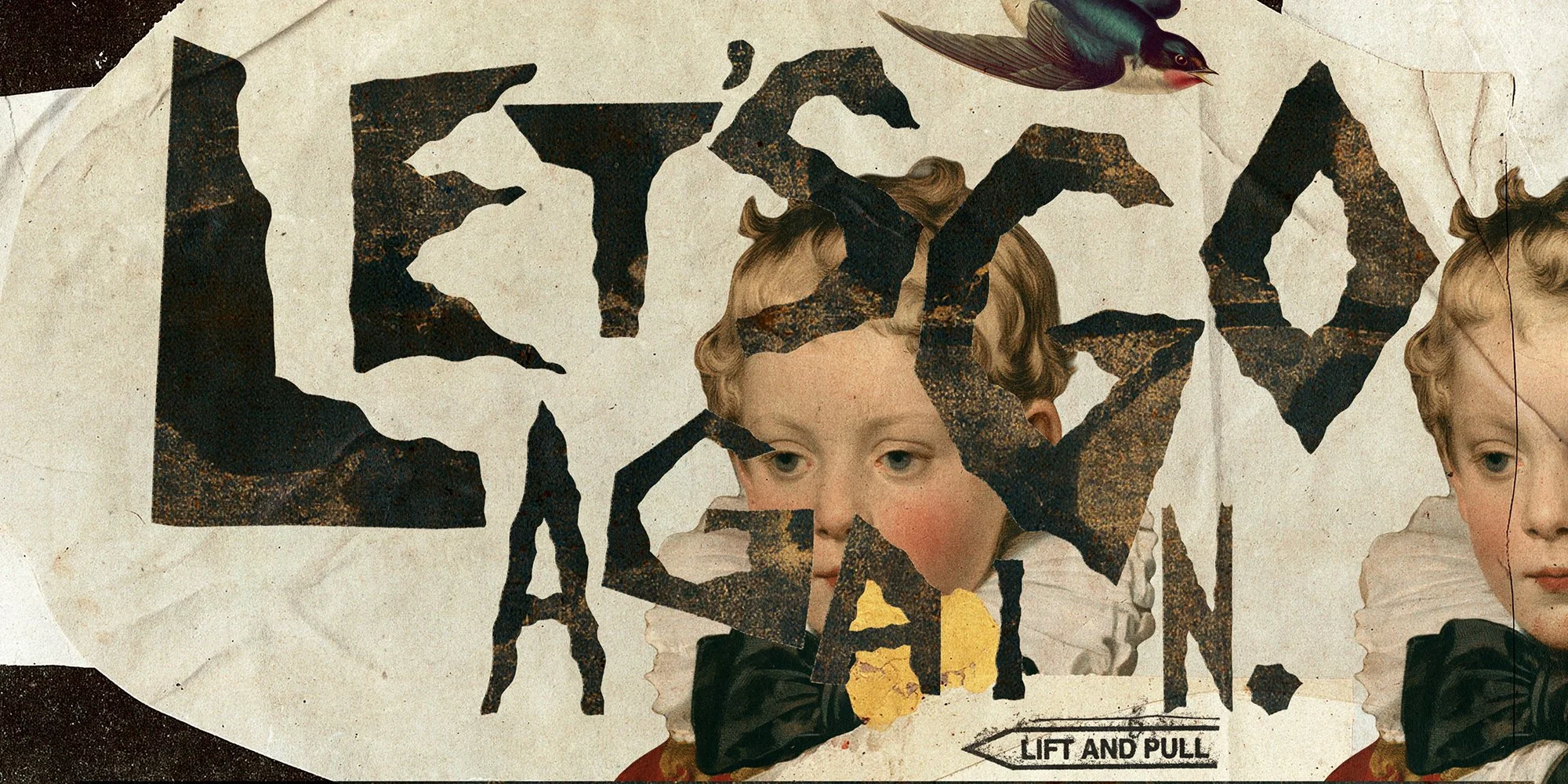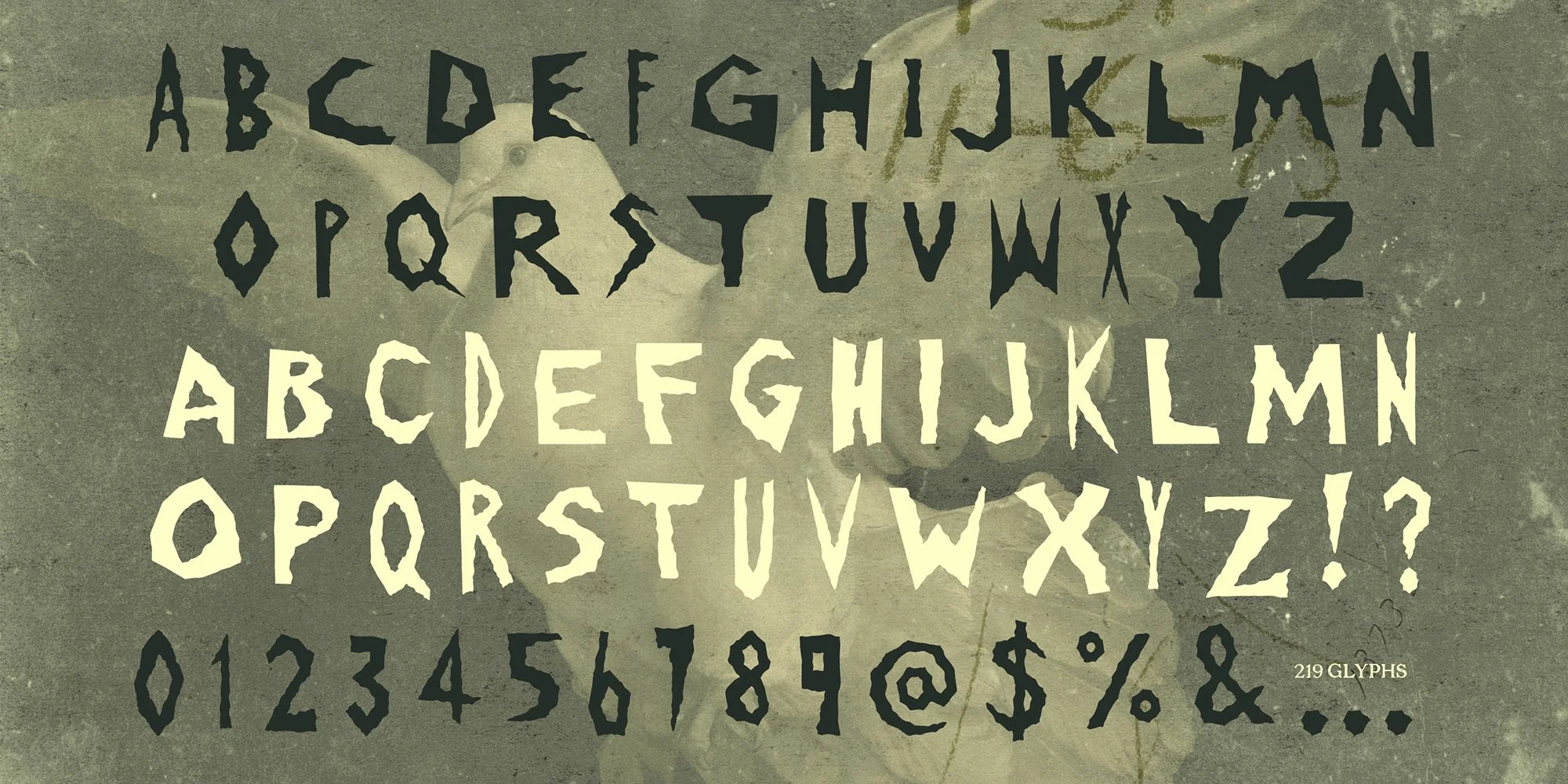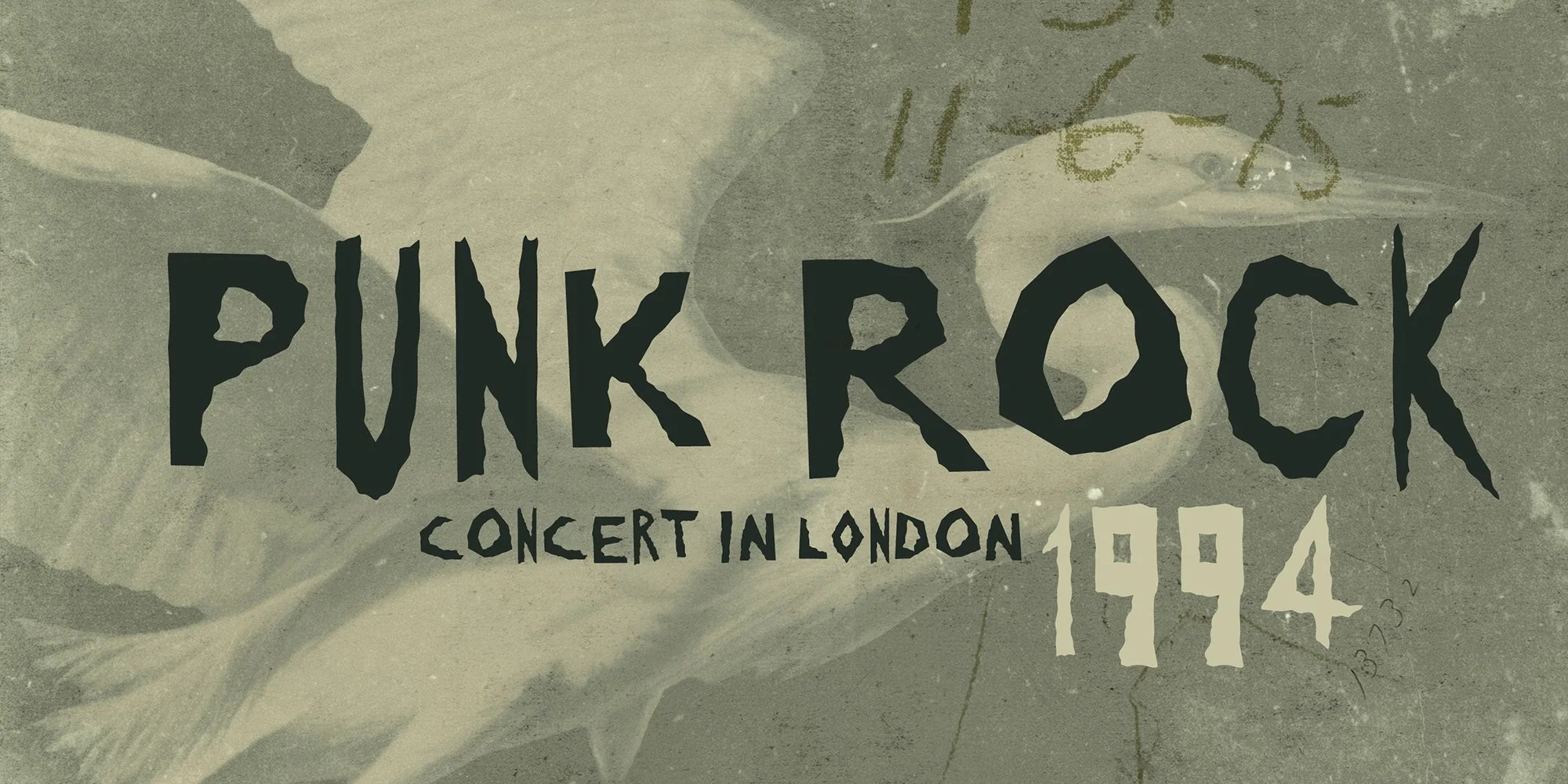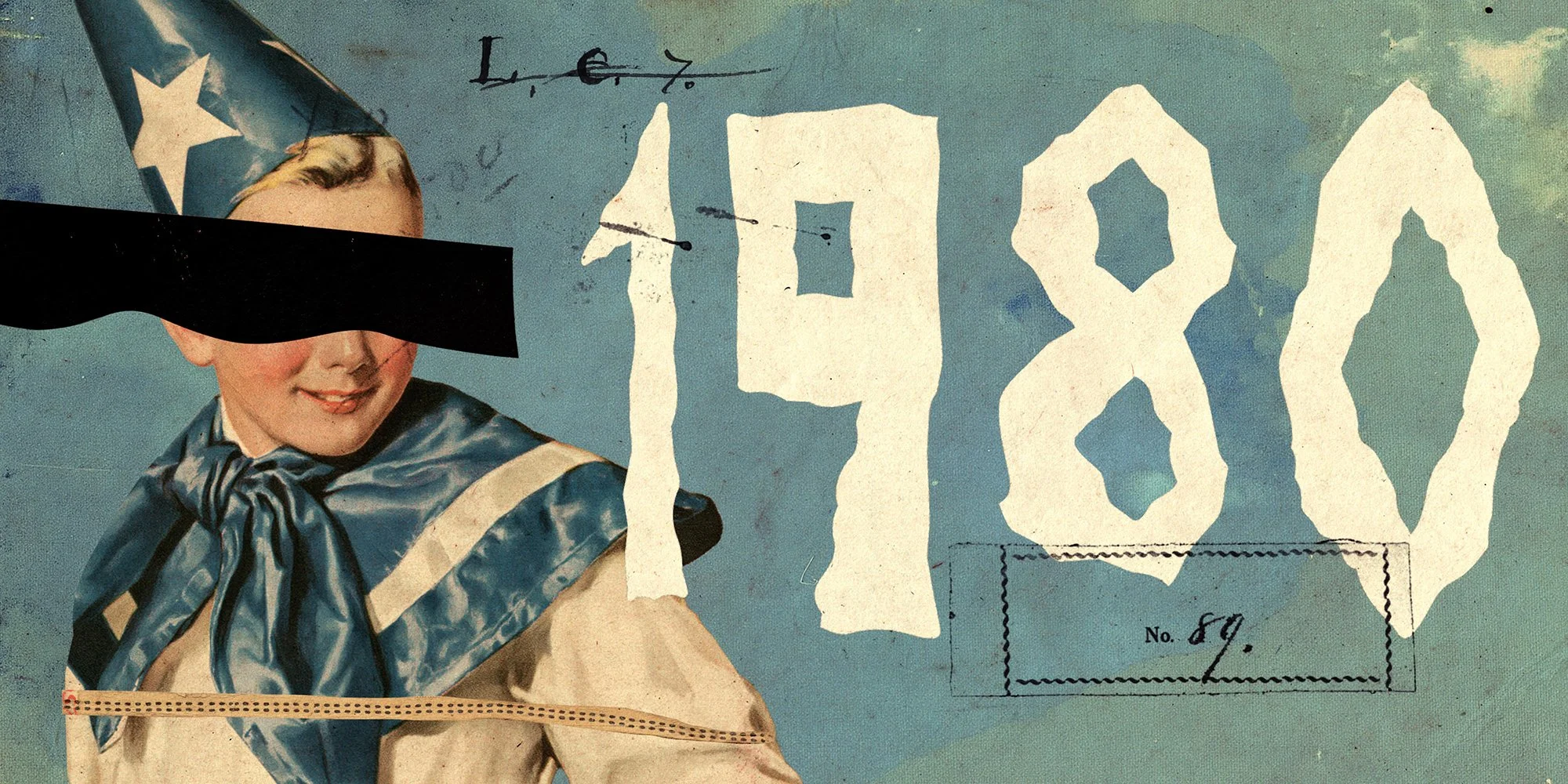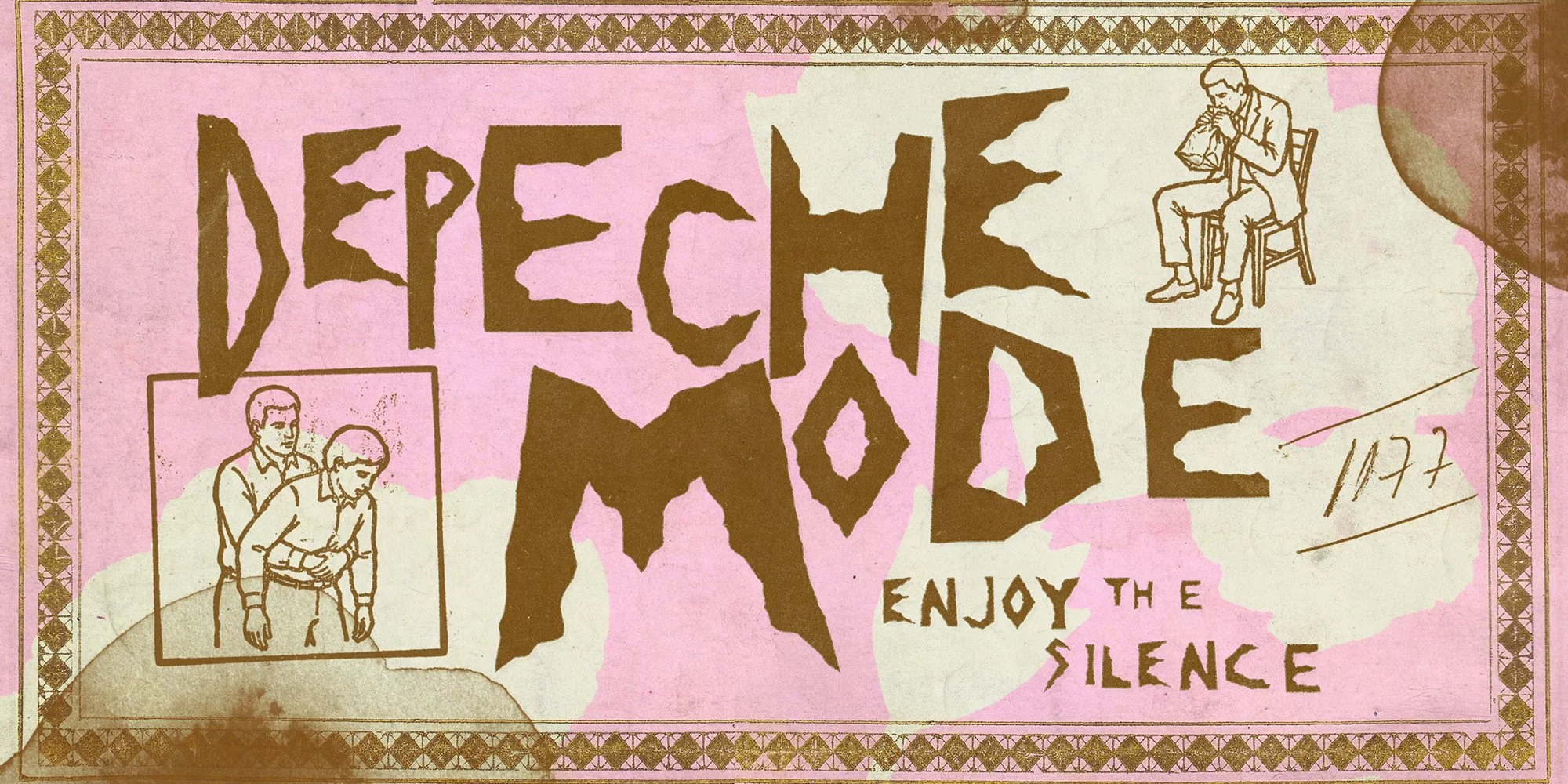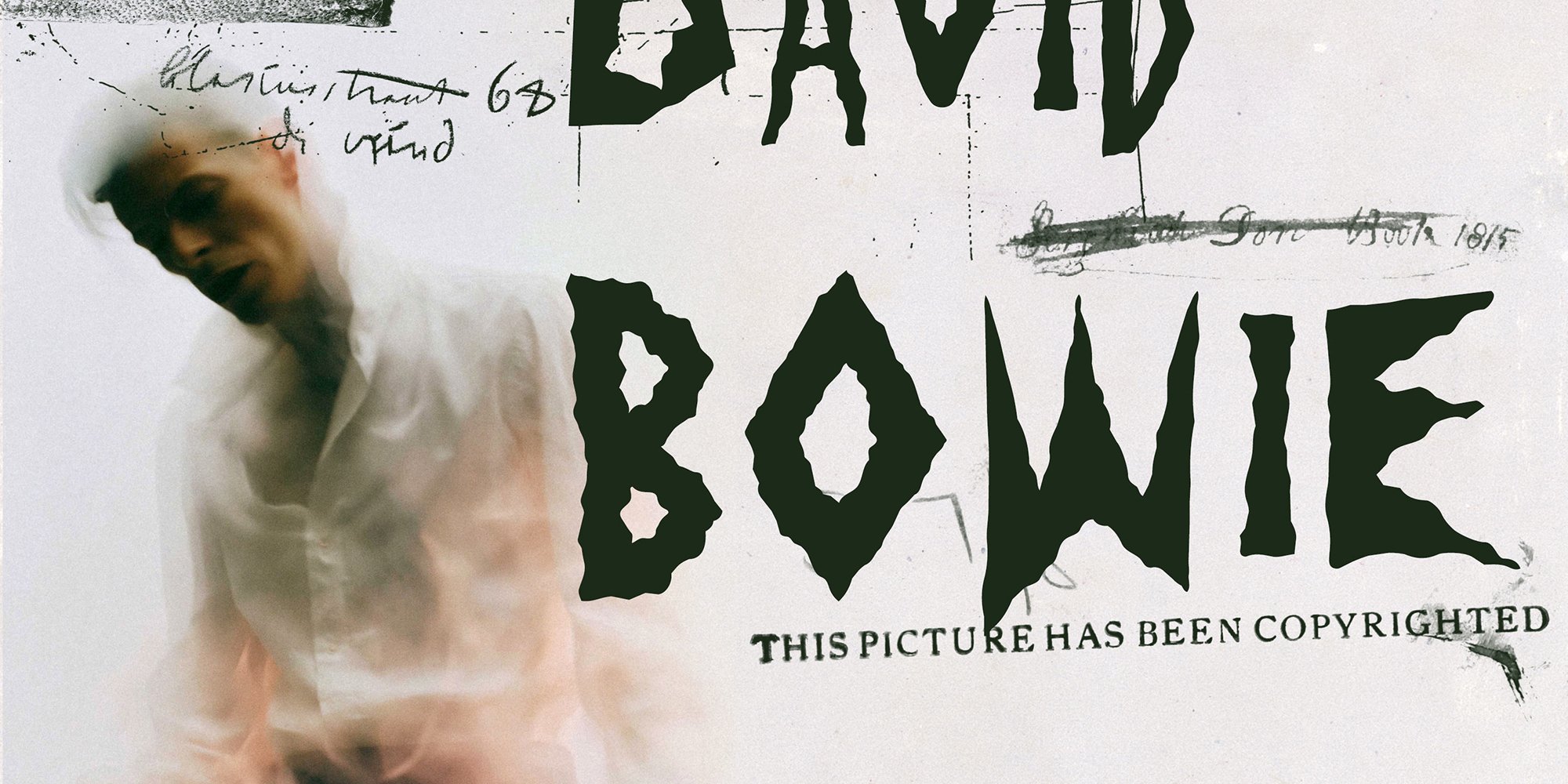
ROUGH CUTOUT
ROUGHT CUTOUT
Rough Cutout is a display typeface inspired by the spontaneity of handmade collage, where every letter looks as if it had been cut from a different piece of paper with scissors and assembled by hand. No two characters share the same personality. Some are bold, others are thin. Some are wide, others are narrow. The irregular edges, uneven proportions, and deliberately mismatched forms give the font an expressive, raw energy that refuses to feel predictable.
font includes two uppercase alphabets, allowing you to alternate characters and create compositions without repeating the same letterforms. Mixing both sets enhances the handcrafted collage aesthetic, making every word feel unique and organically assembled. The font includes 219 glyphs, covering everything you need for bold creative work.
Whether you're designing posters, album covers, magazines, branding, packaging, or collage-inspired artwork, Rough Cutout brings an imperfect, rebellious, and unmistakably handmade character to every composition.